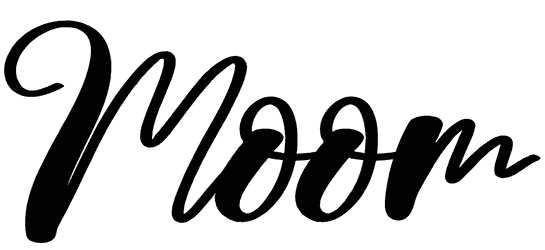
Moom Font
Design your professional projects more tastefully with the cursive letters of Moom and let its playfulness speak on your behalf. It gets even better when you add this swirly font to your postcards, Instagram stories, or Mother’s Day posters, and see what a great difference it makes to your lettering.
It’s a script font that strikes the perfect middle ground between calligraphy and casual handwriting. So luckily, you get to come off as stylish and friendly at the same time.